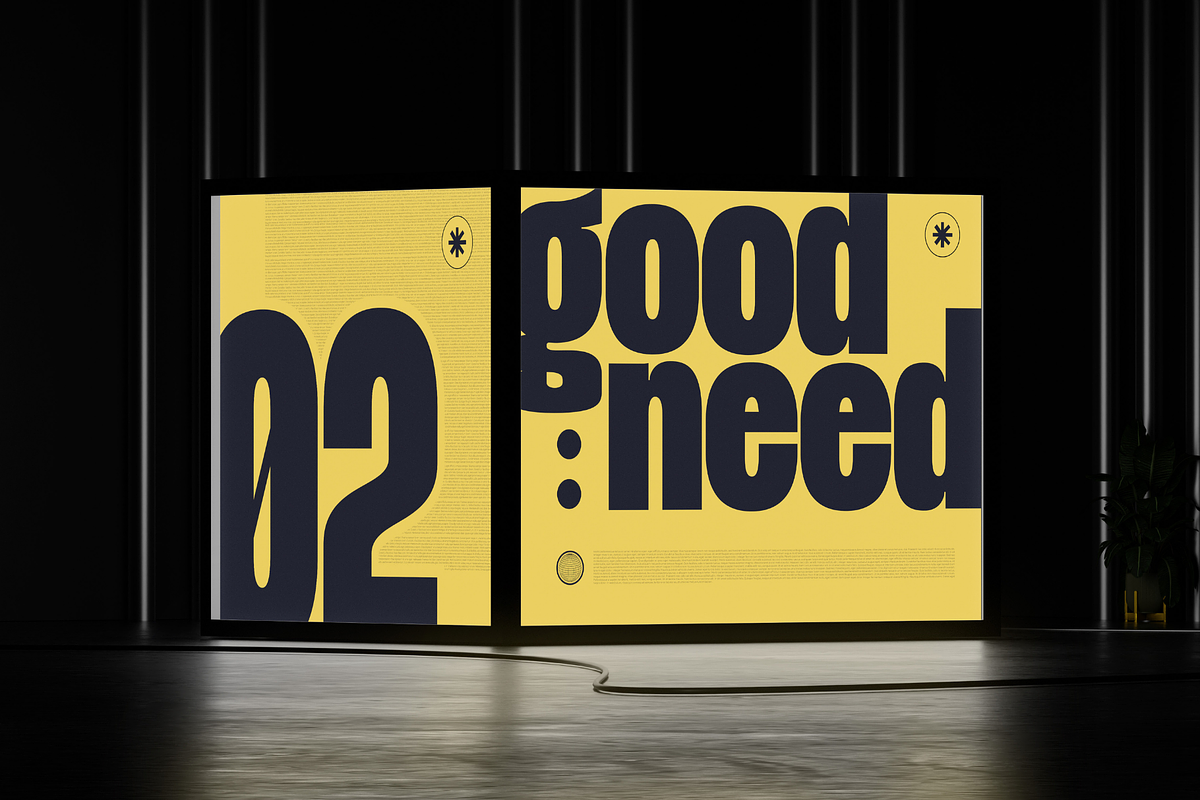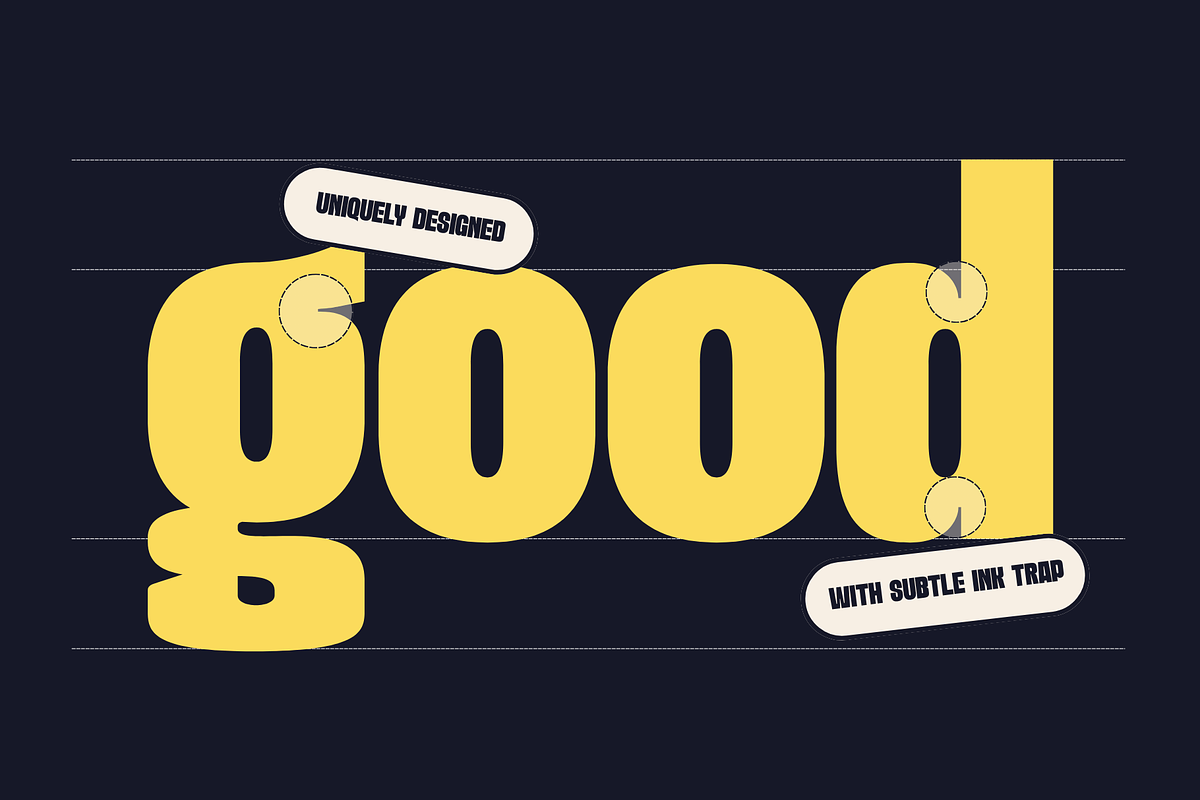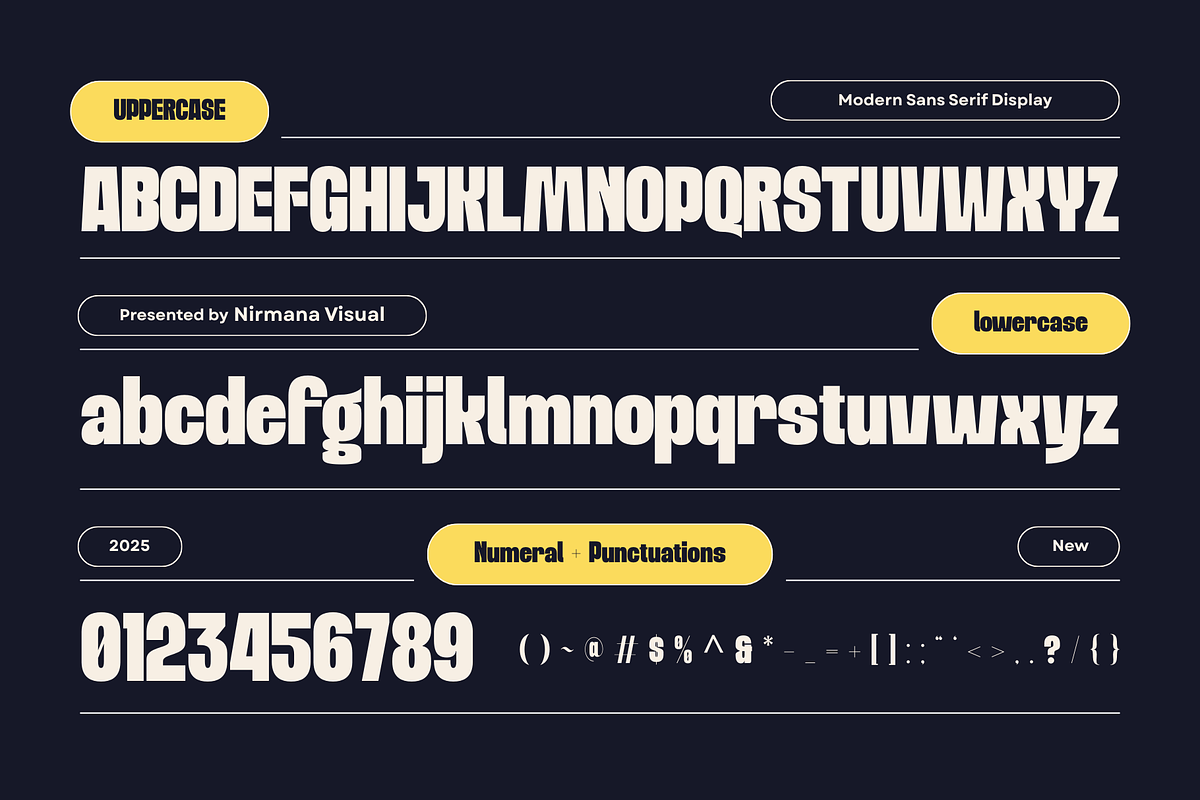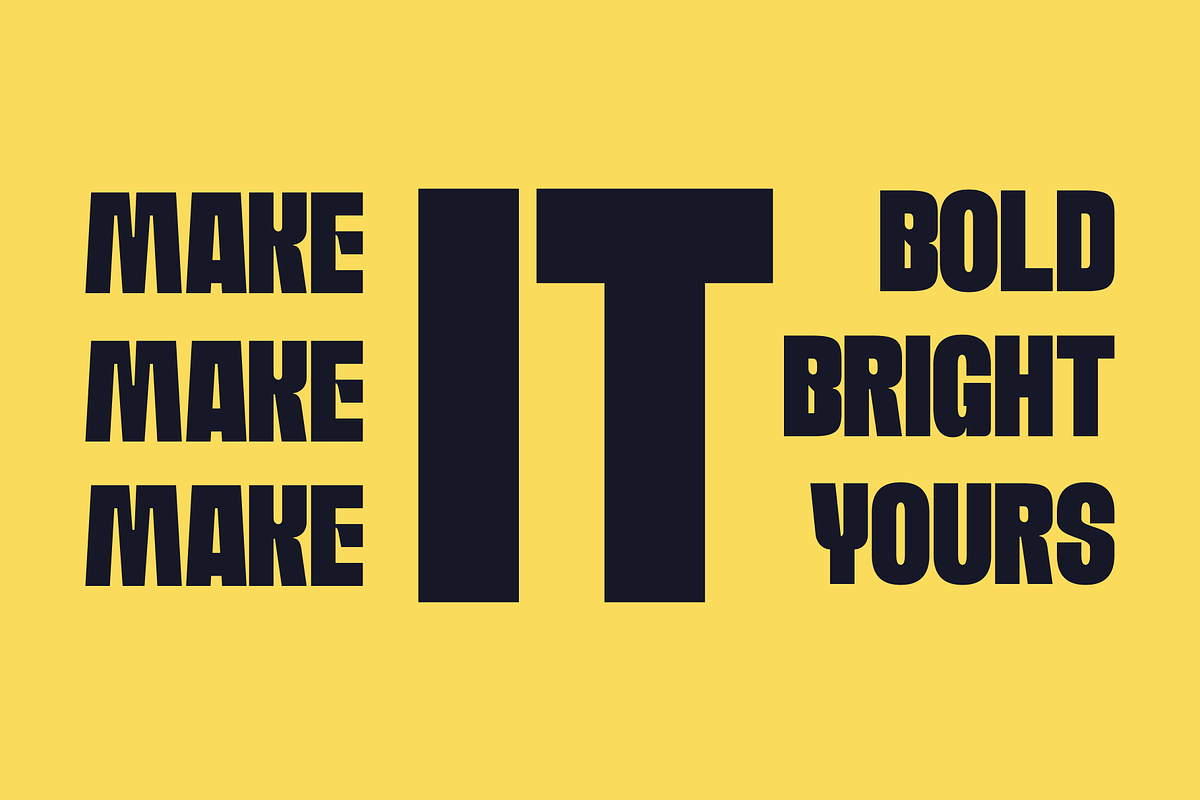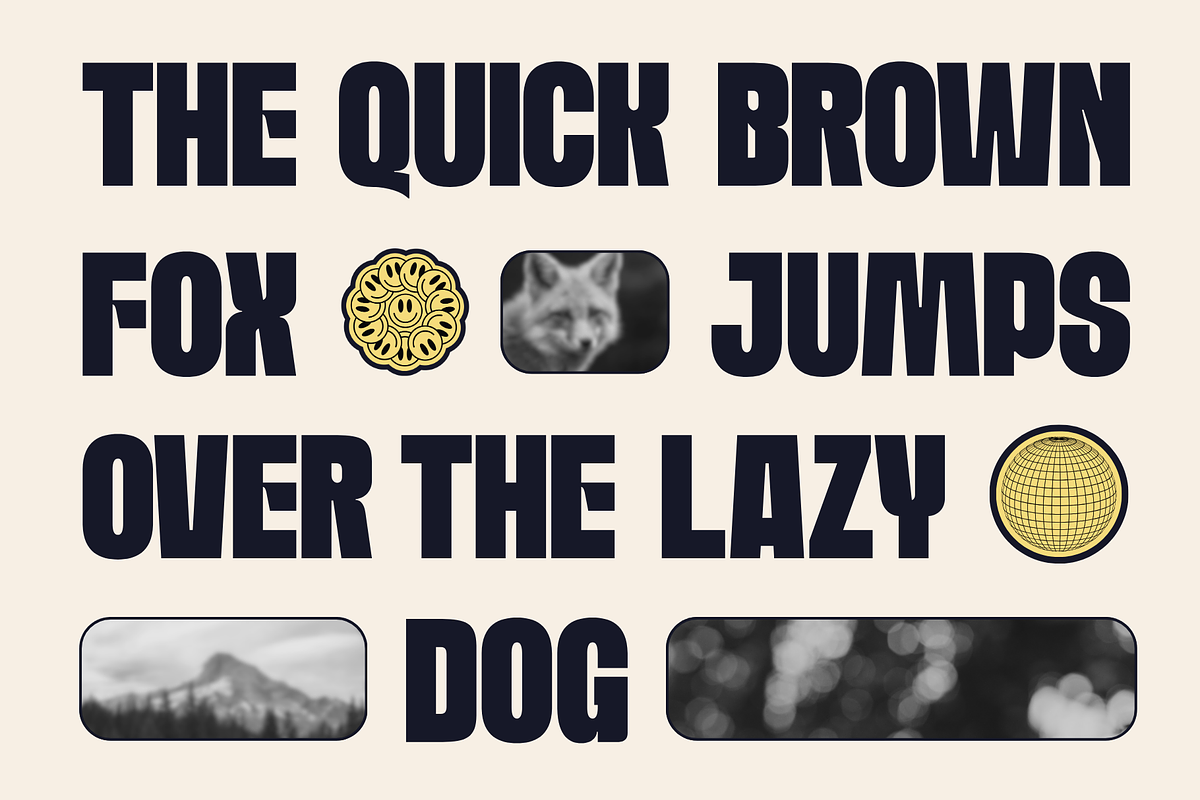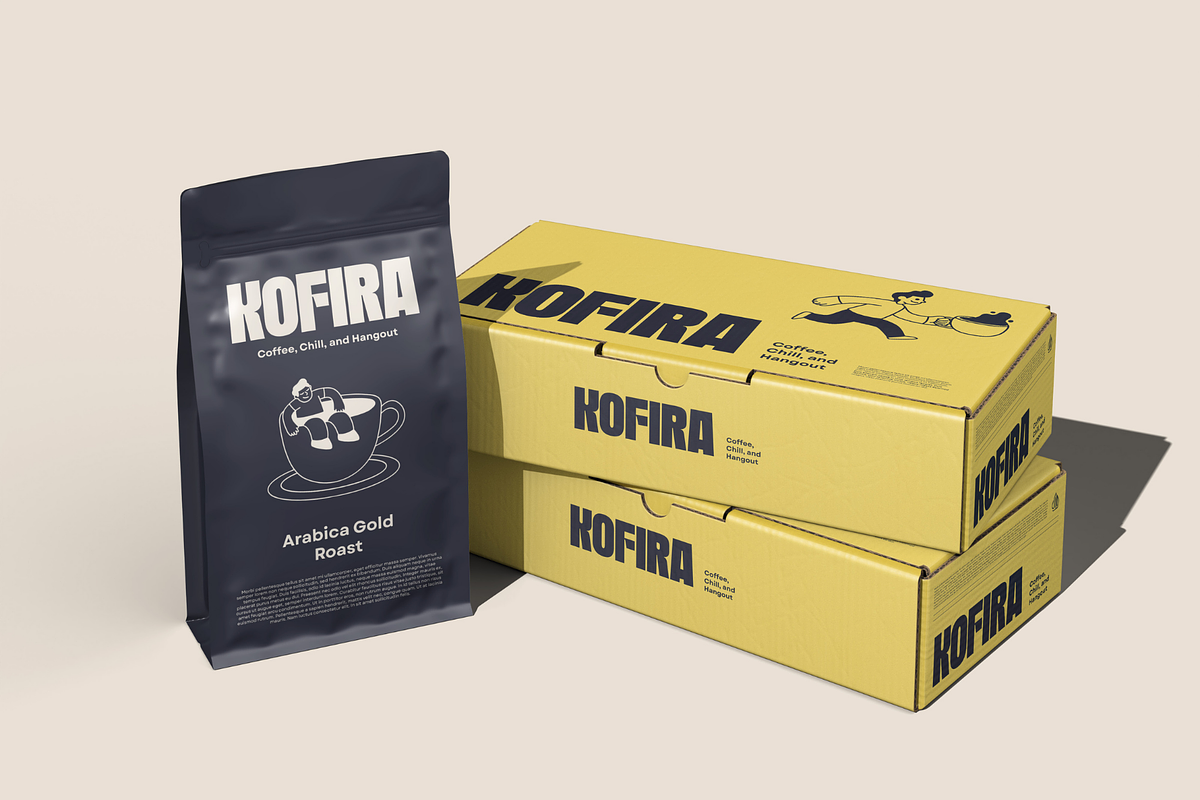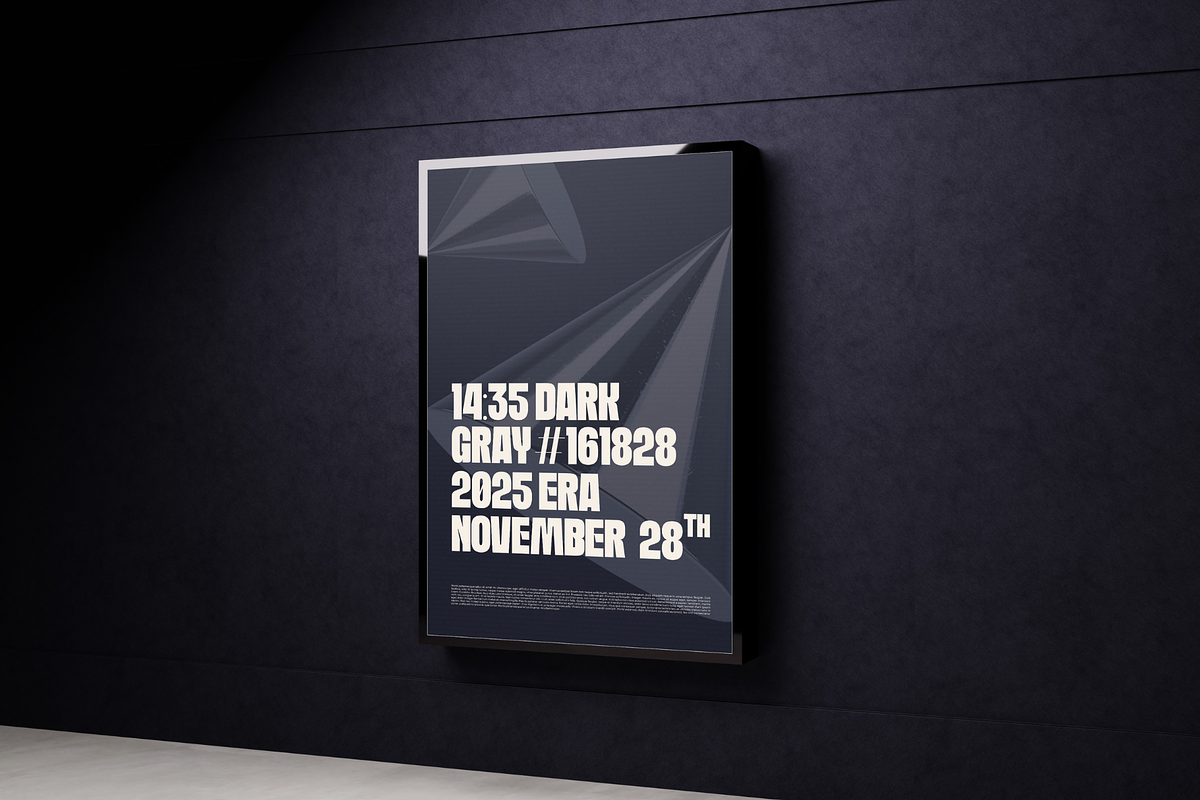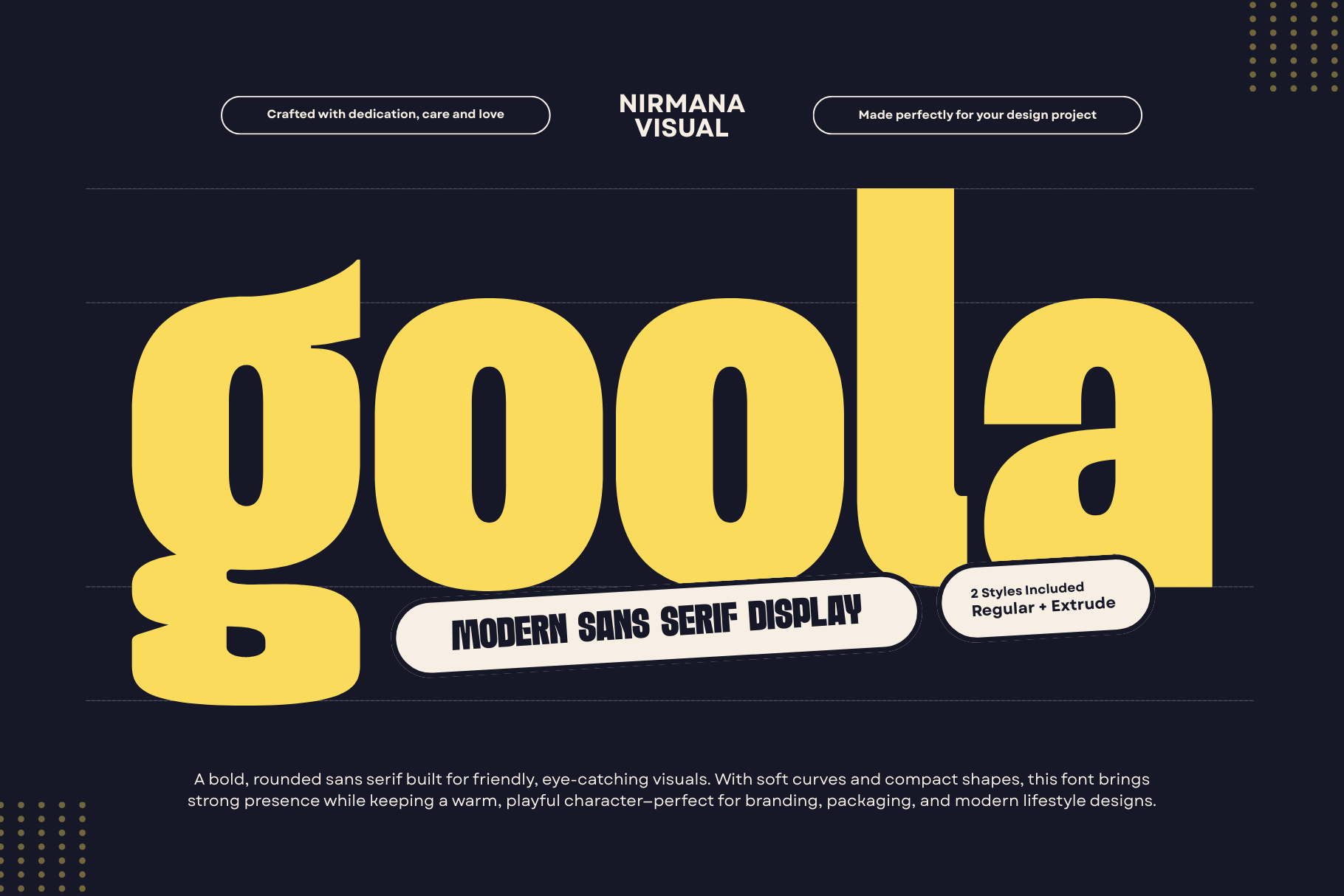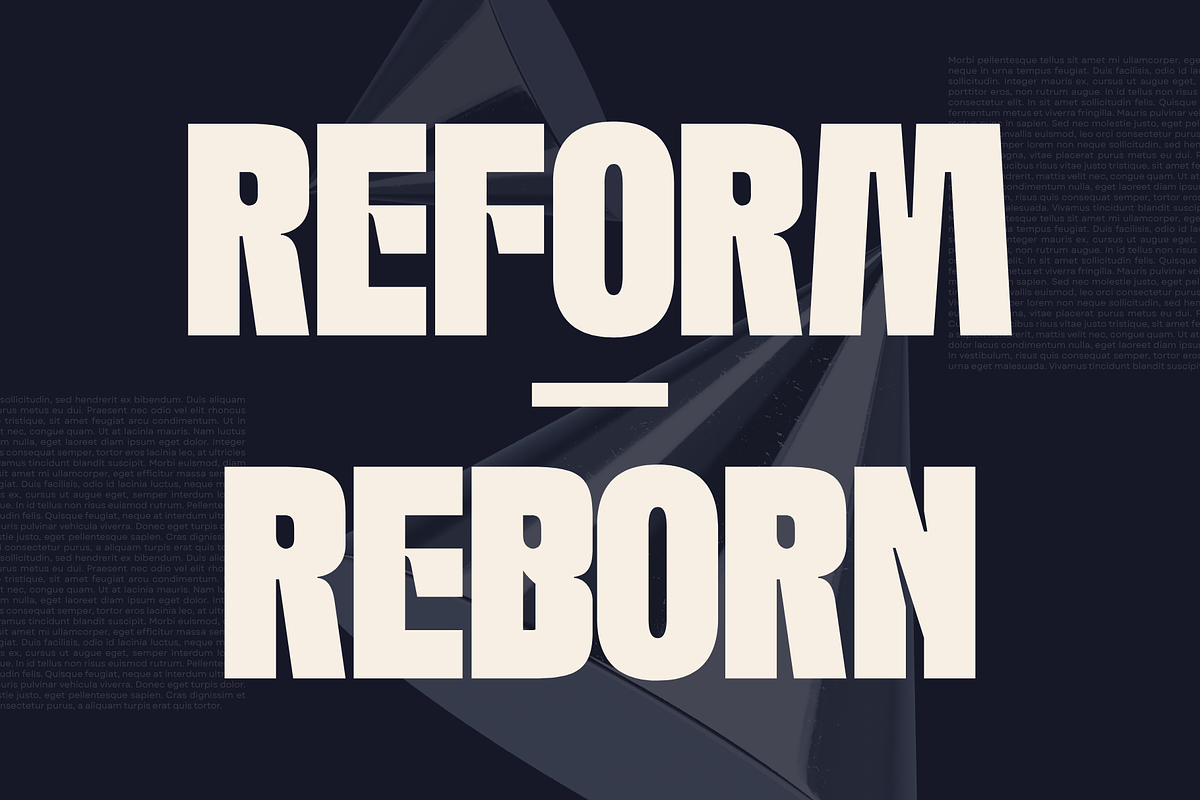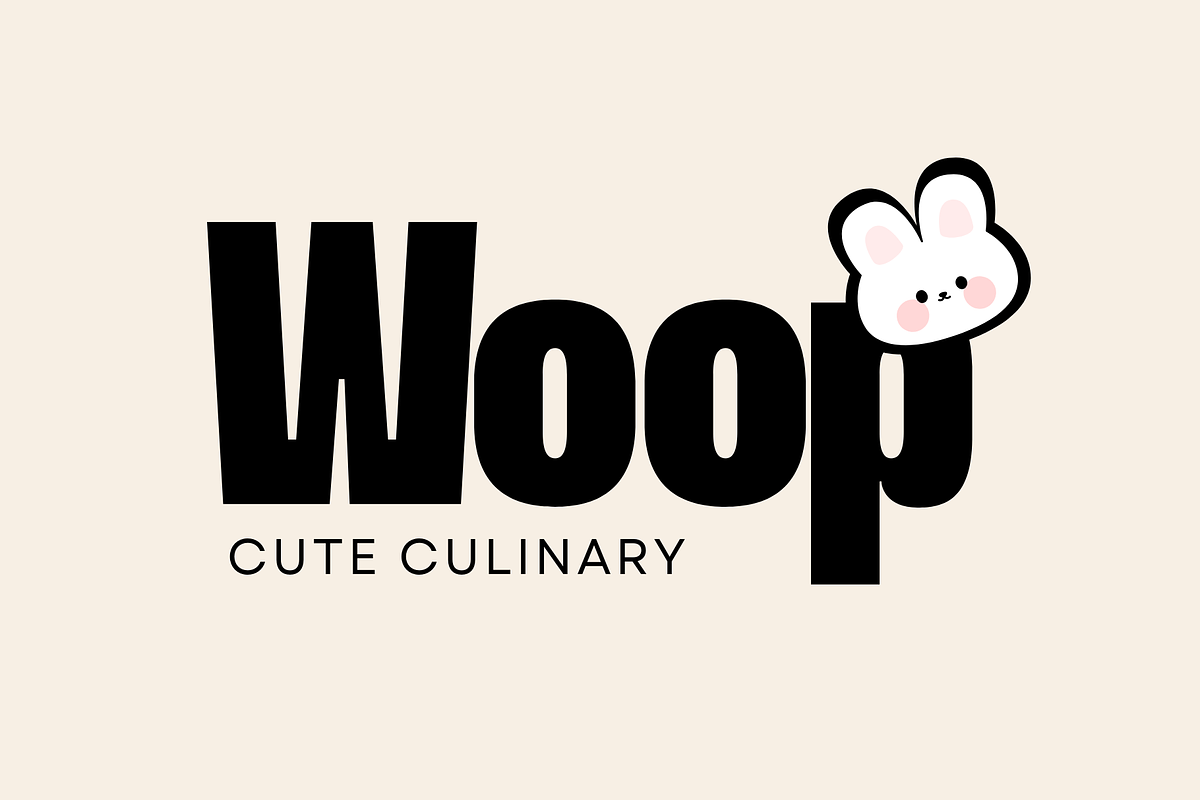
Goola Modern - Bold Extrude Font
Goola Modern is a bold sans-serif font crafted for strong visual impact. Available in Regular and Extrude, it delivers a clean, modern style perfect for headings, titles, logos, labels, packaging, and versatile branding needs. Its powerful shapes and smooth geometry make every design stand out with confidence, clarity, and a contemporary aesthetic suitable for both digital and print use.